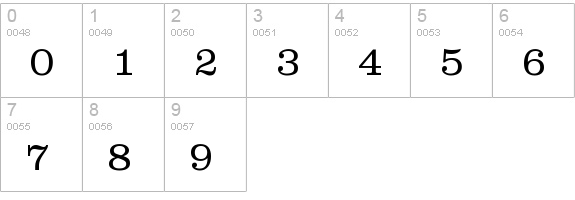
Introit Light SSi Light is a refined, elegant variant in the Introit typeface family \xE2\x80\x94 well suited to elegant body text, refined sub-headings, and luxury branding.
Introit Light SSi Light font is a stunning typeface that exudes elegance and sophistication. Its delicate letterforms and graceful curves make it perfect for adding a touch of refinement to any design project. Whether you're creating a logo, designing a website, or crafting an invitation, this font will effortlessly elevate your work to a whole new level. One of the best things about Introit Light SSi Light font is that it is free. Yes, you read that right - this beautiful font is freely available to download at FontsMarket.com. You don't have to worry about breaking the bank or sacrificing quality to get your hands on this gem. With its clean lines and precise details, Introit Light SSi Light font is incredibly versatile. It works well in both small and large sizes, ensuring that your text is always legible and visually appealing. Its light weight gives it a modern and airy feel, making it perfect for projects that require a touch of sophistication. The character set of Introit Light SSi Light font is extensive, covering a wide range of languages and special characters. This ensures that you can use this font seamlessly across different projects and platforms without any limitations. So, whether you're a professional designer or a DIY enthusiast, Introit Light SSi Light font is a must-have in your font library. Its timeless beauty and versatility make it a valuable tool for any creative project. Download it for free at FontsMarket.com and let your designs shine with the brilliance of Introit Light SSi Light font.